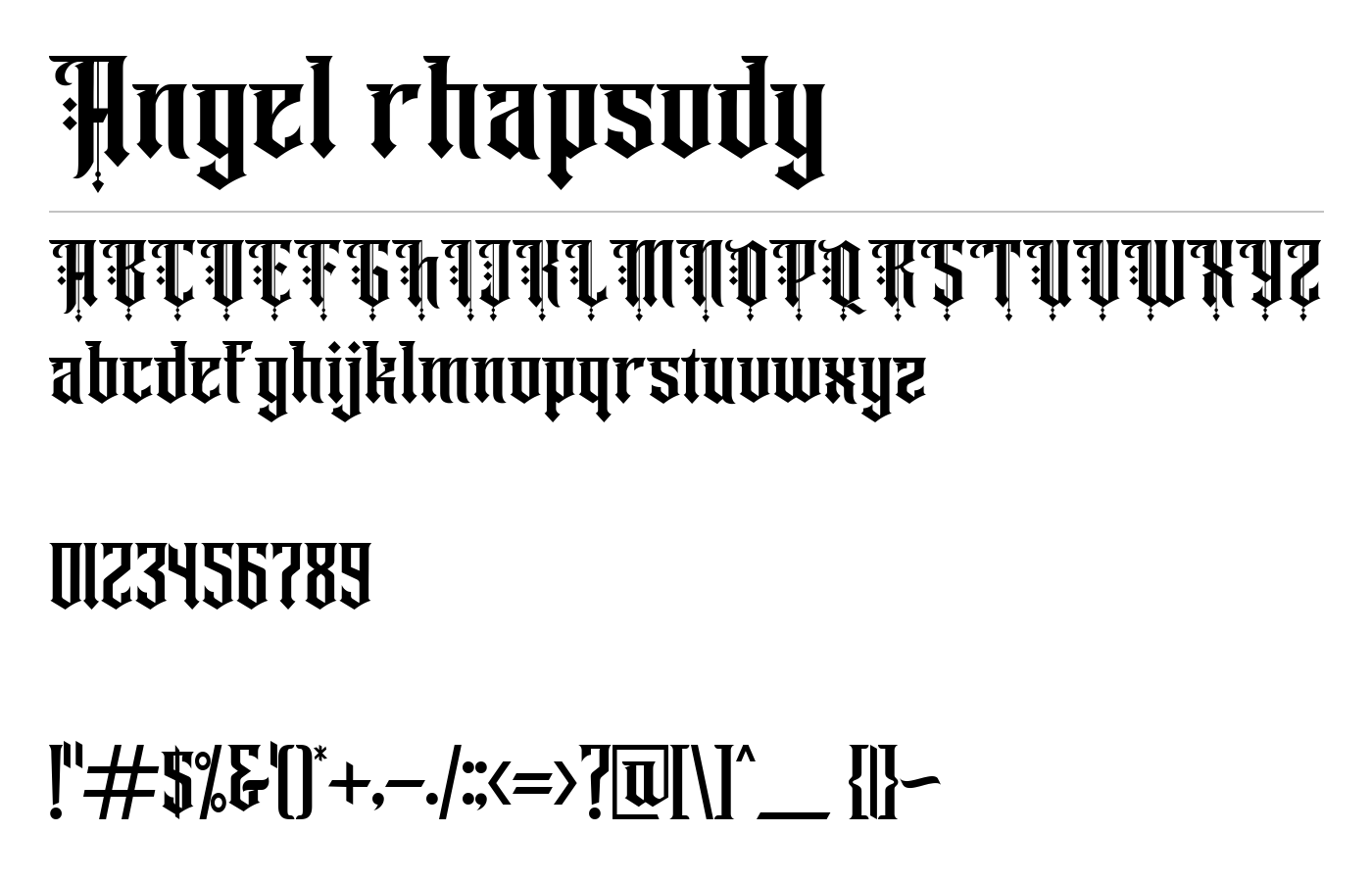
Angel Rhapsody is a bold blackletter serif font with a strong gothic character and high contrast between thick and thin strokes. Its detailed, angular forms paired with decorative diamond shapes evoke a dramatic and historic feel, making it ideal for striking headlines, logos, or branding that seeks an edgy, vintage, or medieval atmosphere. This font works well where a unique, intense style is needed to capture attention and convey a sense of tradition fused with bold creativity.
Angel rhapsody Font
About Angel rhapsody Font
| Font family | Angel rhapsody Font |
| Designer | Stringlabs |